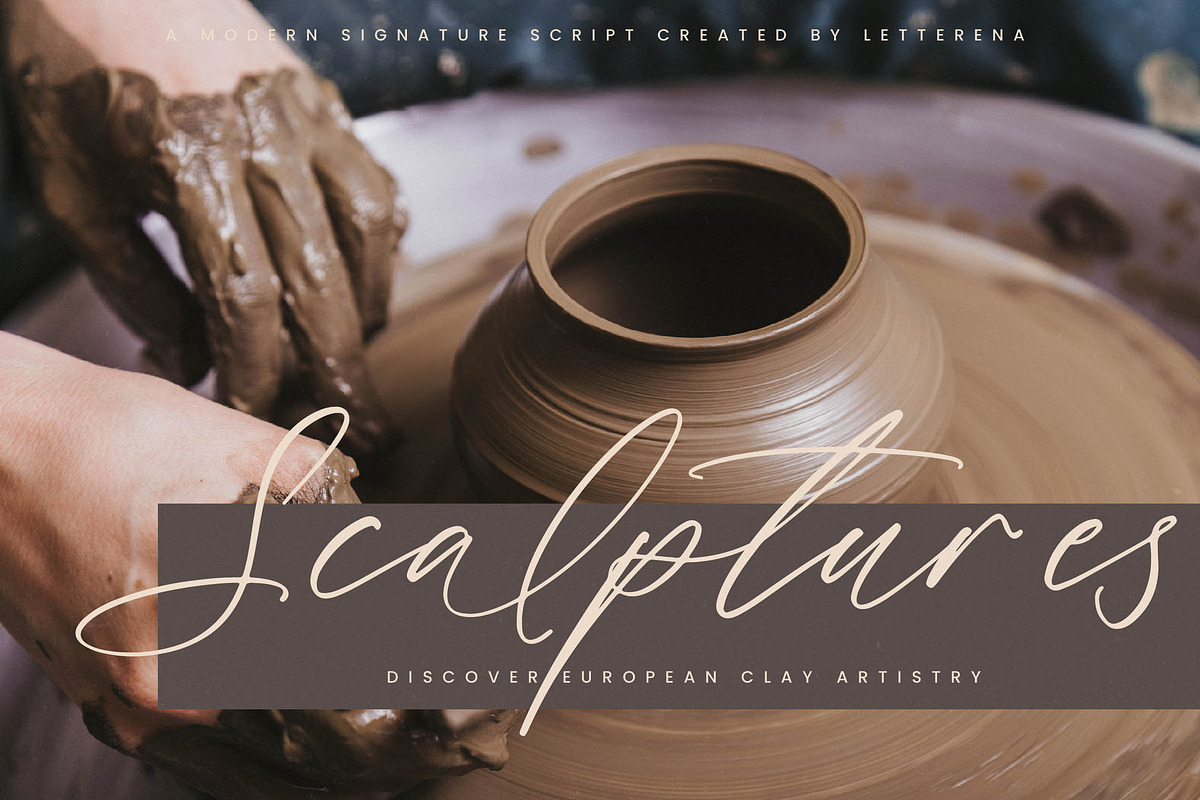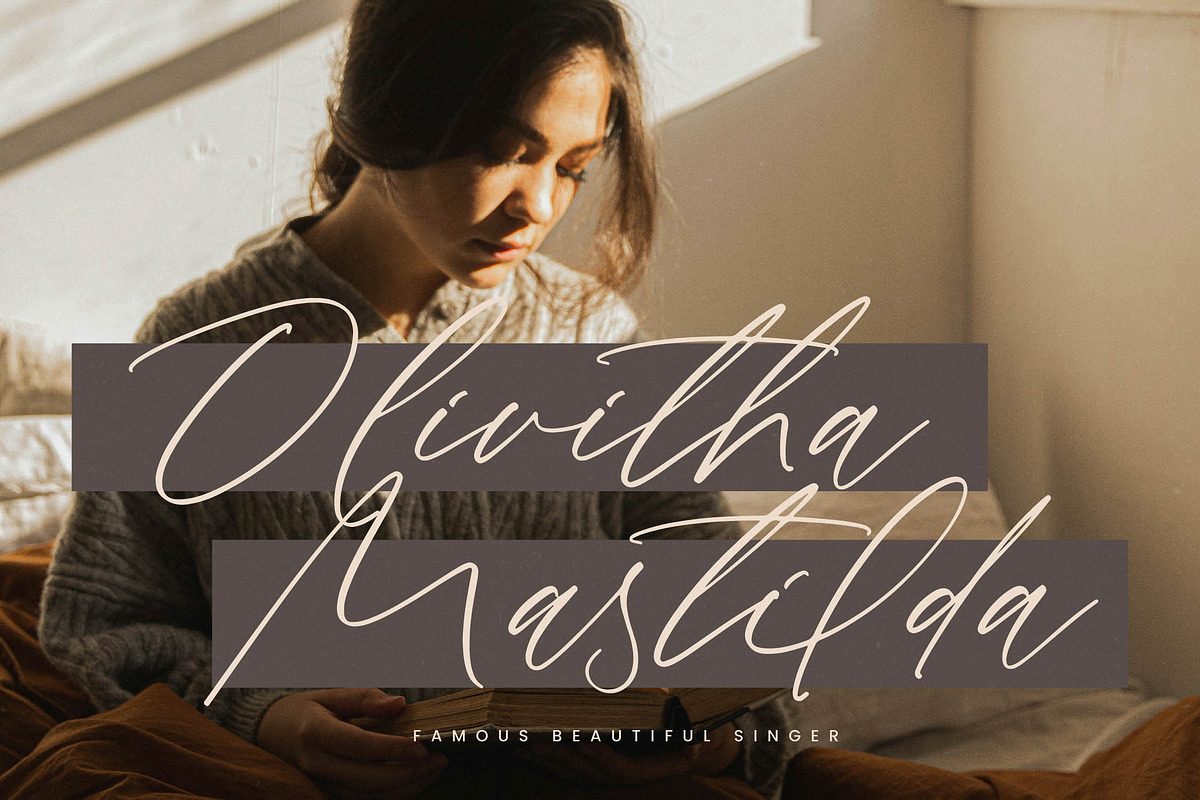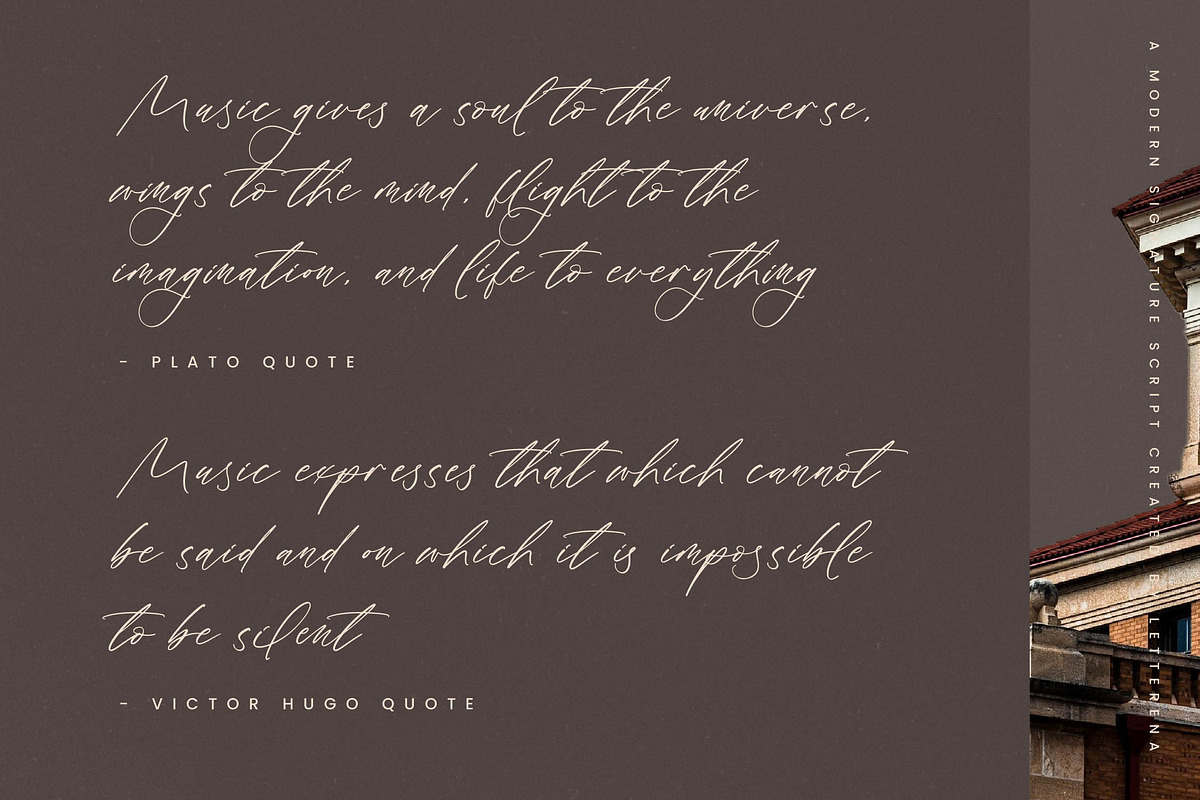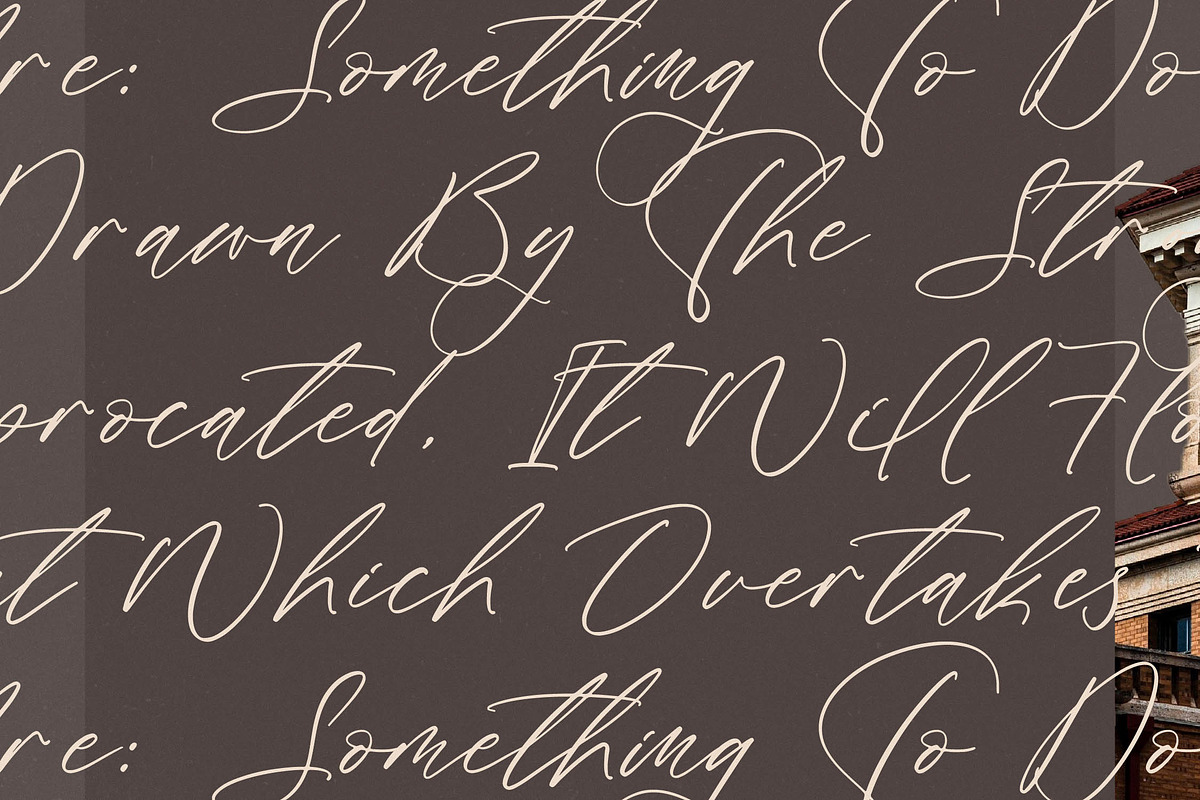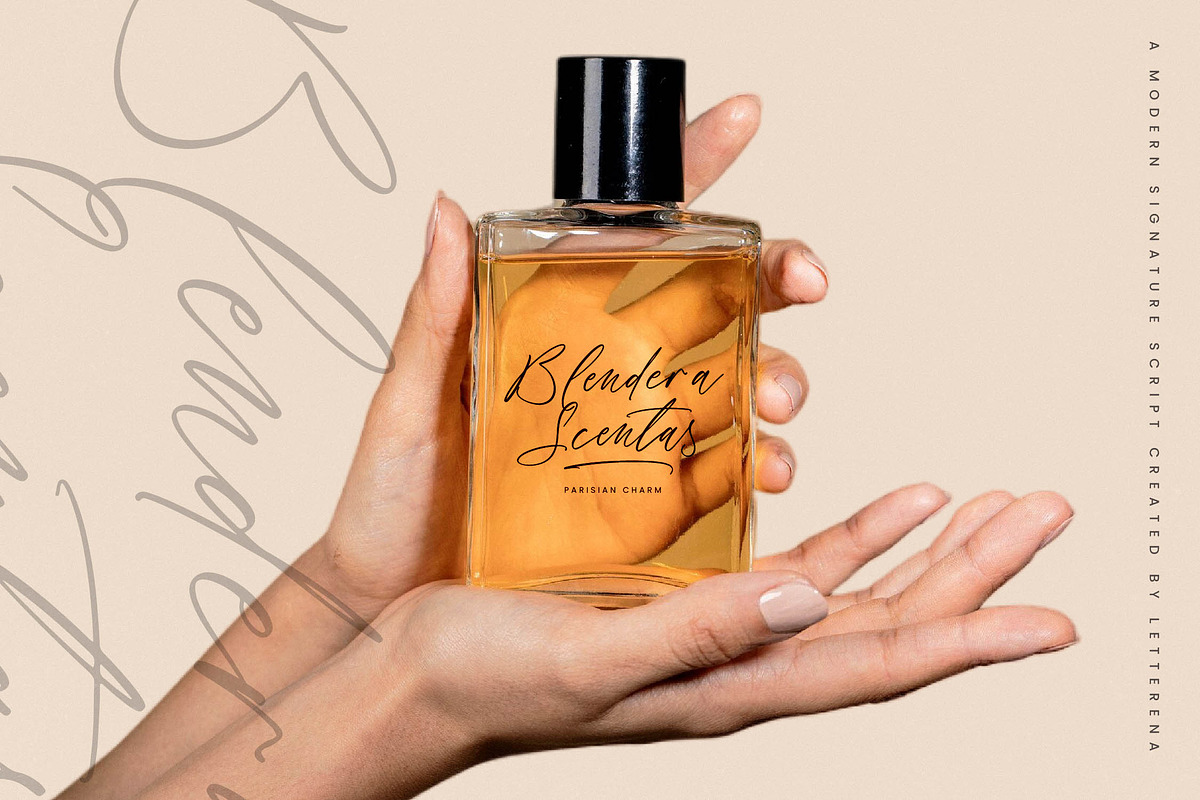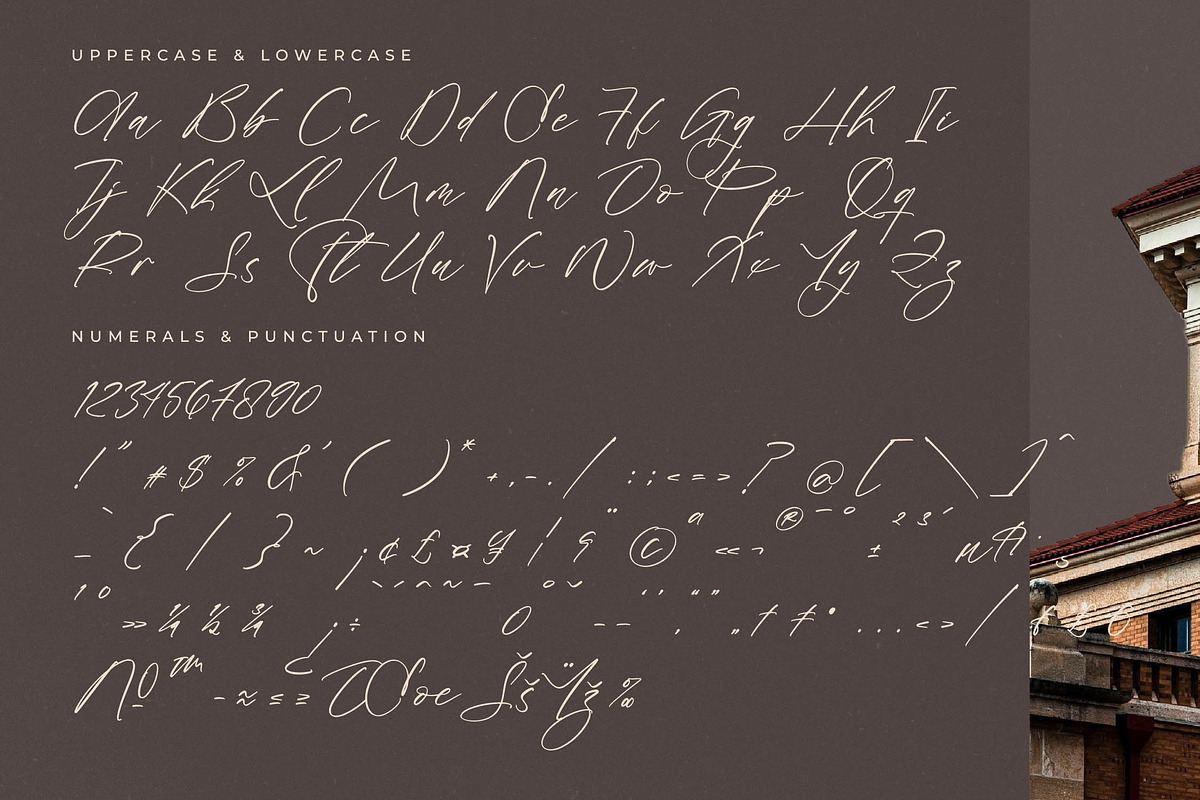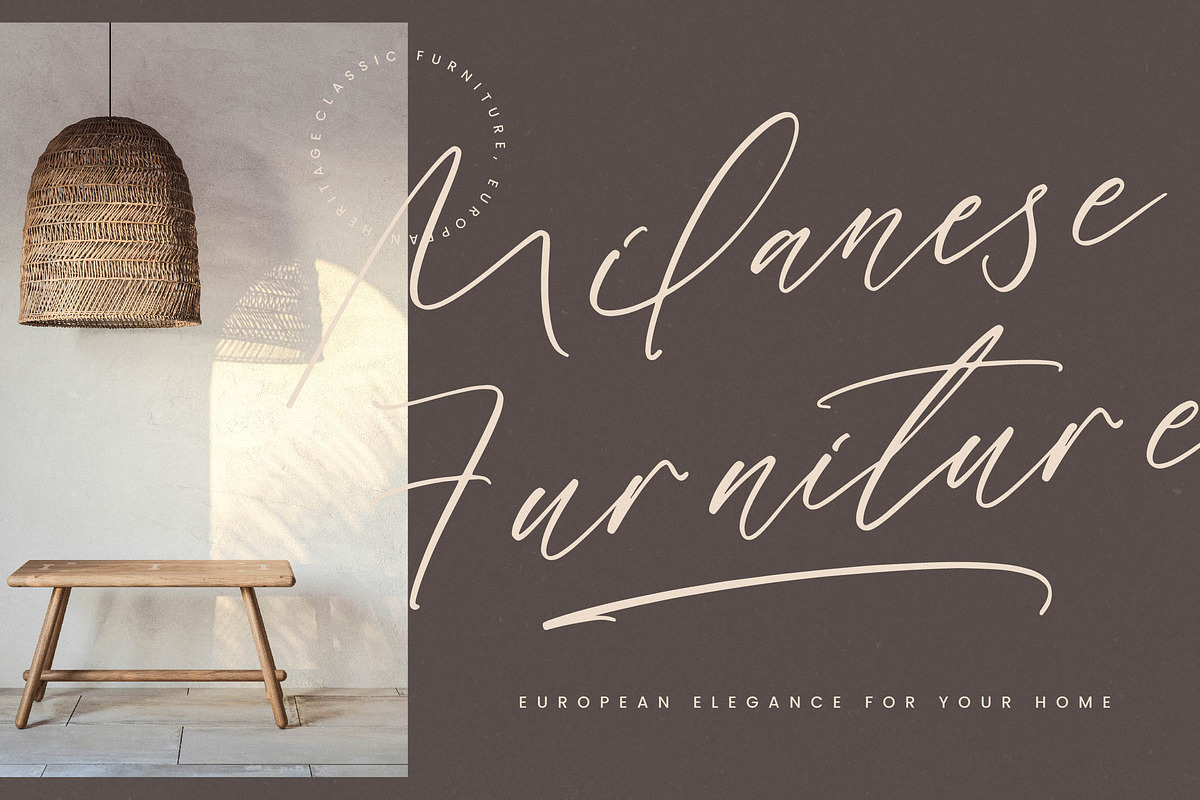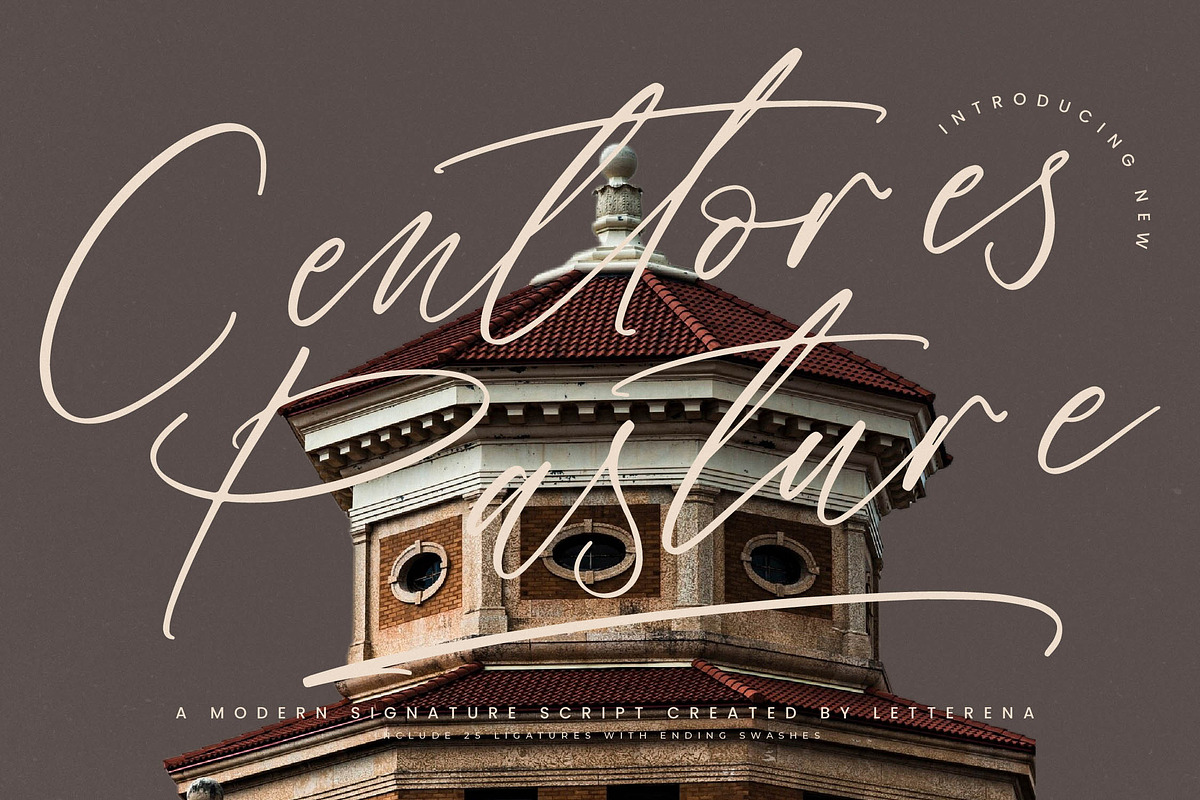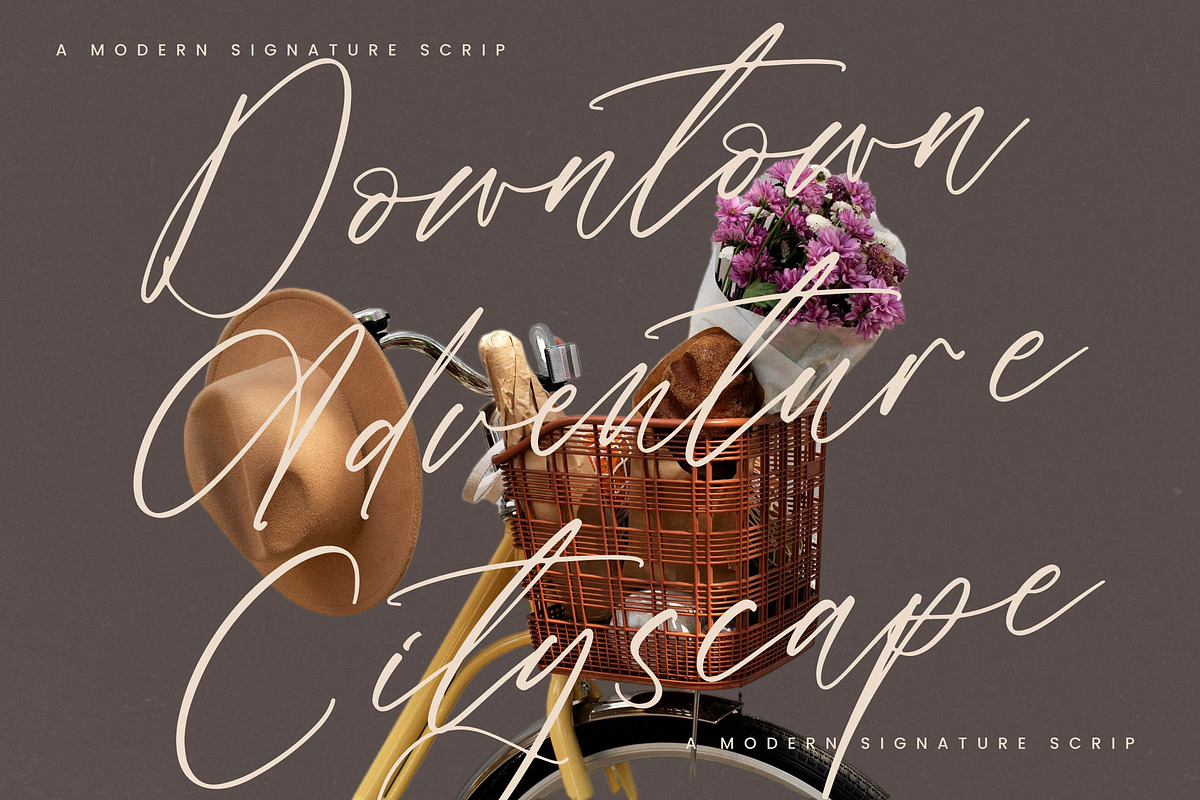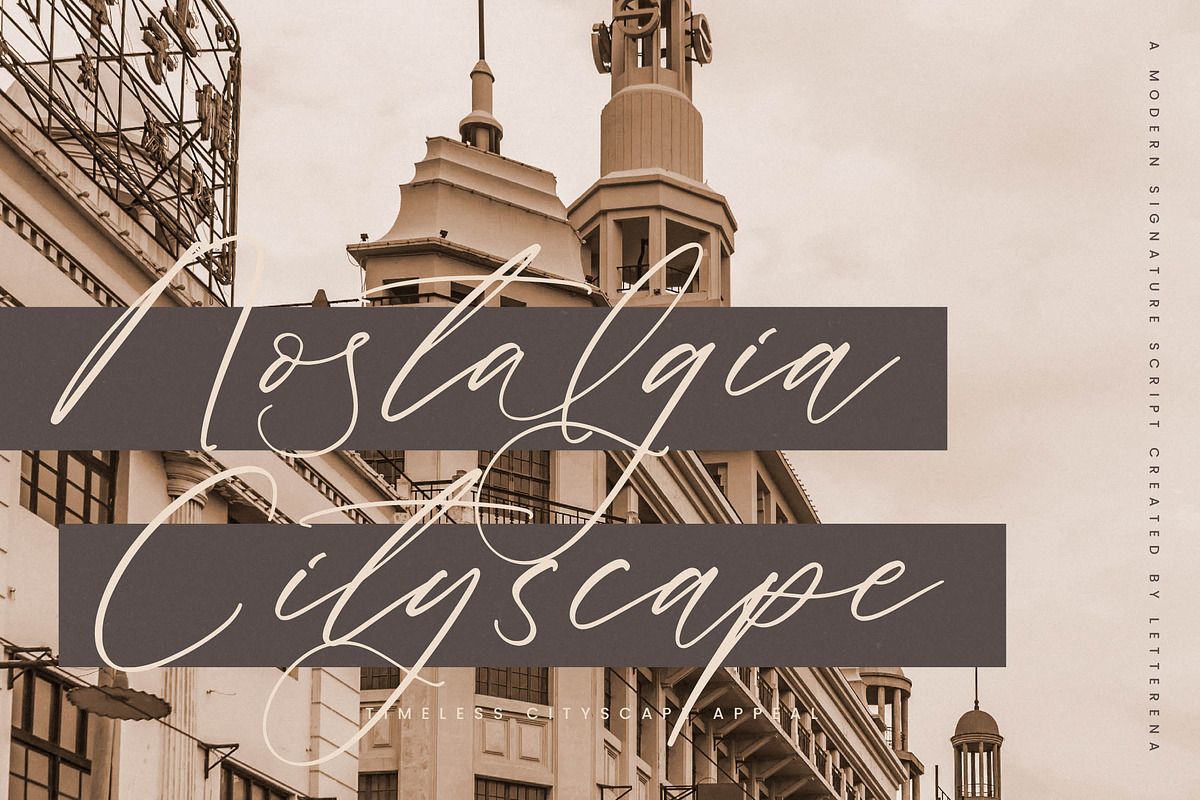
Centtores Pasture Modern Signature
Centtores Pasture – Modern Signature Script , from Letterena, is a Luxury Script font, suitable for any projects such as: logos, branding projects, homeware designs, product packaging, mugs, quotes, posters, shopping bags, t-shirts, book covers, name card, invitation cards, greeting cards, label, photography, watermark, special events, and all your other luxury and beautiful projects that need a Luxury Script taste.